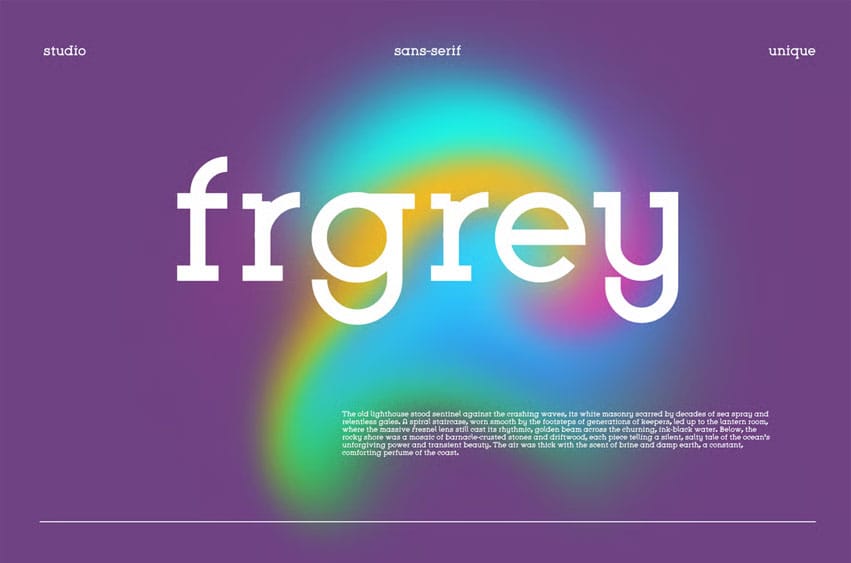
Fr Grey Font Built on balanced spacing and geometric form, it reflects the calm logic of modern technology. Smooth curves meet digital edges, giving every letter a quiet confidence.
Simple, readable, and styled for the new interface era.